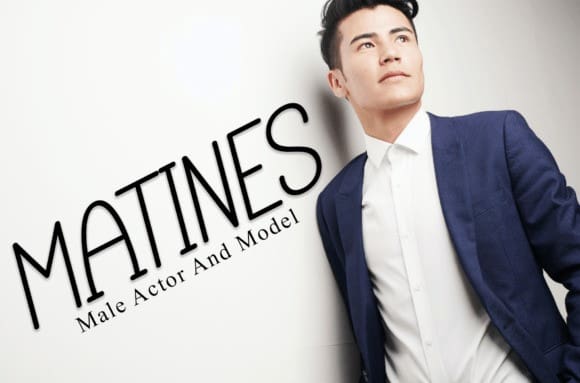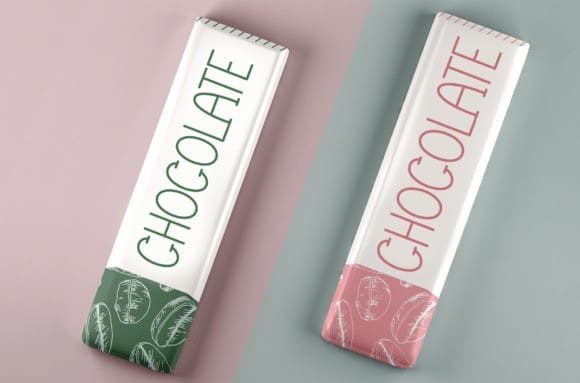
Magic House Font
Magic House Font is a sweet and friendly handwritten font. Fresh and neat, this font is ideal for writing wedding invitations, cards, or any other design that might need a fun touch!